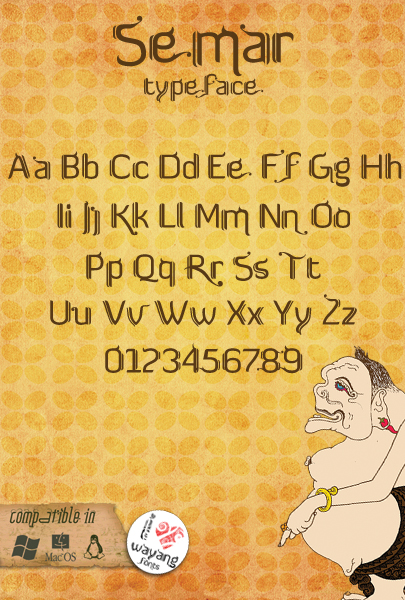
FTF Semar Poenakawan™ - DEMO VERSION NOW ON DAFONT! Please use this font only for personal use. For commercial use (like for the book, cover, poster, TVC, or many more) please email me FIRST! email: fizzlabz@gmail.com Or you can quick donation here (My PayPal: fizzlabz@gmail.com) ONLY $22 After you donation, i send you full set character from this font. FTF Semar Poenakawan born from Local Culture in Indonesia, "The Typeface from Puppet Wayang Kulit Purwa Indonesia Character PUNAKAWAN". For more Info about this font just visit: http://punakawanfonts.tumblr.com (Affiliate by FTF FizzeticaTypeFoundry.tumblr.com) |